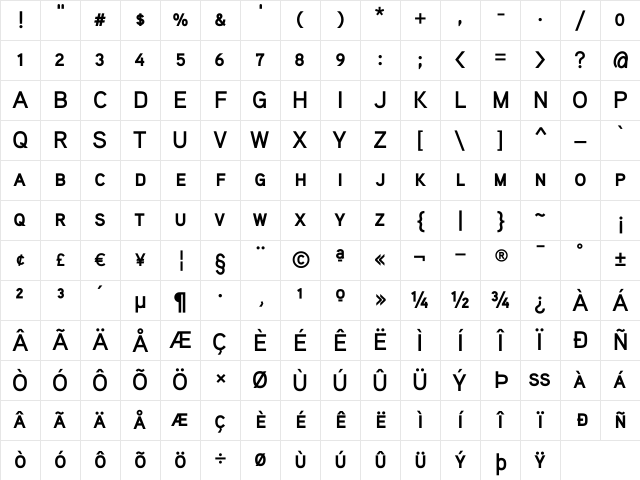
Aaux ProBold SC Regular Free Font
Aaux ProBold SC Regular
Design Context for Aaux ProBold SC
Aaux ProBold SC is a composed and adaptable typeface that performs quietly and consistently across a wide range of design contexts. Its bold stroke weight gives it real presence on the page.